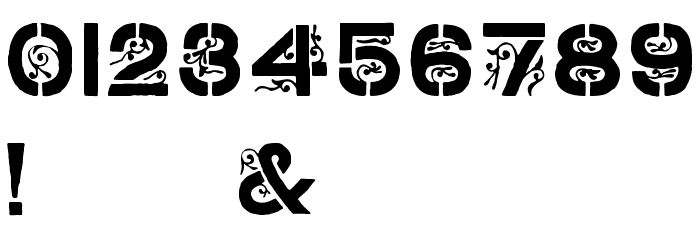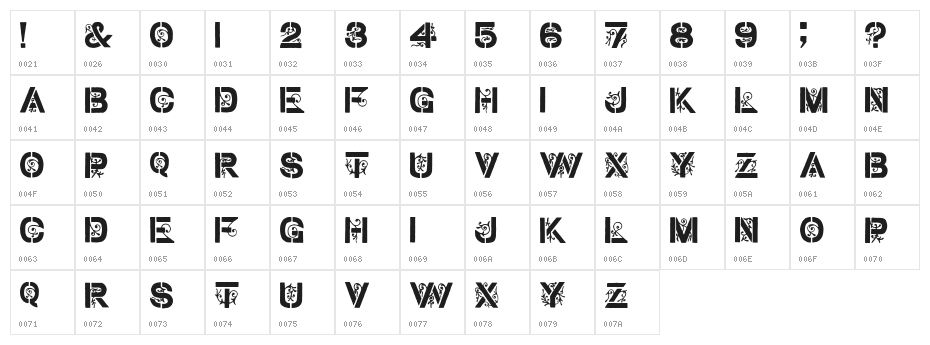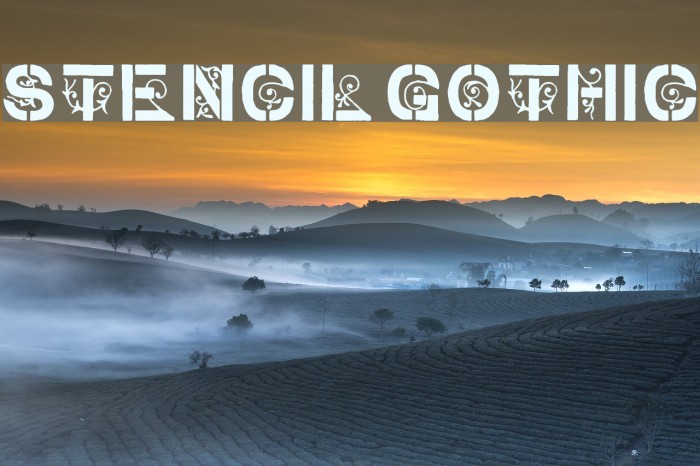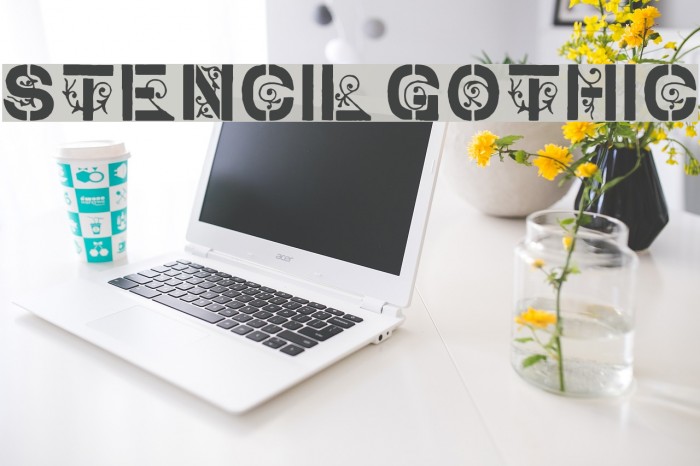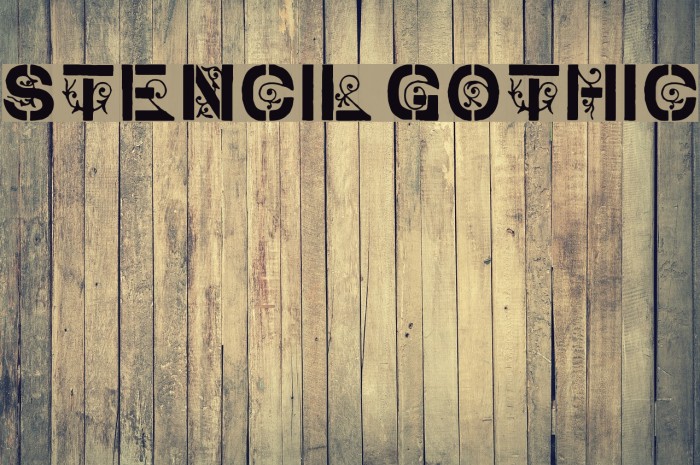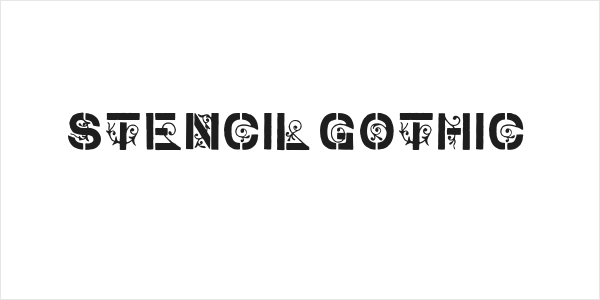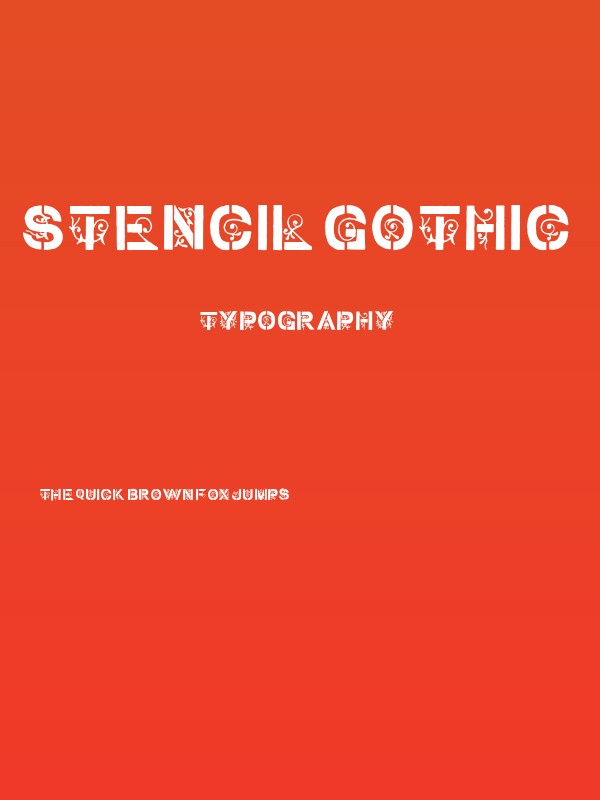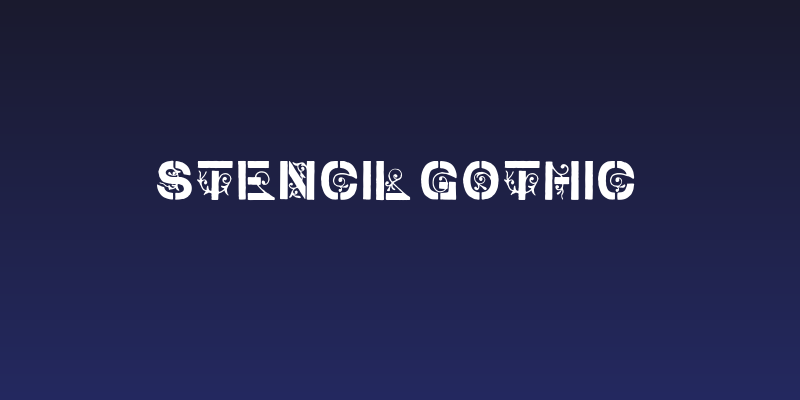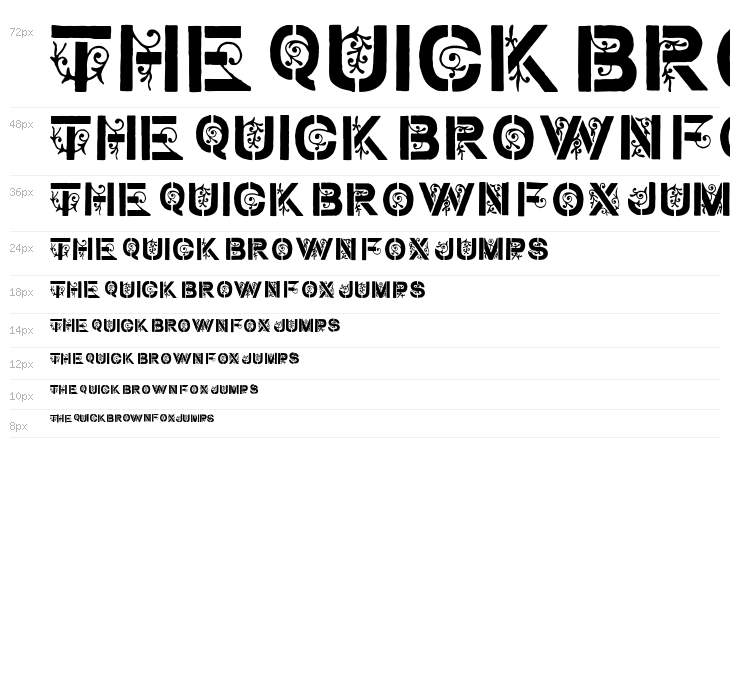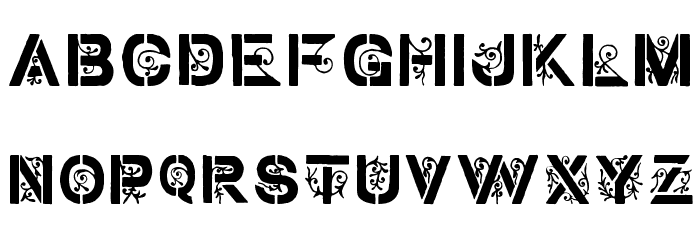
stencil gothic Font
stencil gothic Description
This font features a bold, decorative style with a stencil-like appearance. Each character is uniquely designed with intricate floral and vine patterns that add an artistic flair. The uppercase letters are bold and striking, making them stand out with their distinct cut-out sections. The lowercase letters maintain the same decorative elements, ensuring consistency throughout the typeface. Numbers and special characters are also adorned with similar ornamental details, enhancing the overall aesthetic. The font's design is both eye-catching and sophisticated, making it suitable for creative and artistic projects.
| Proposed Projects | Ideal for artistic posters, event invitations, branding, and decorative signage. |